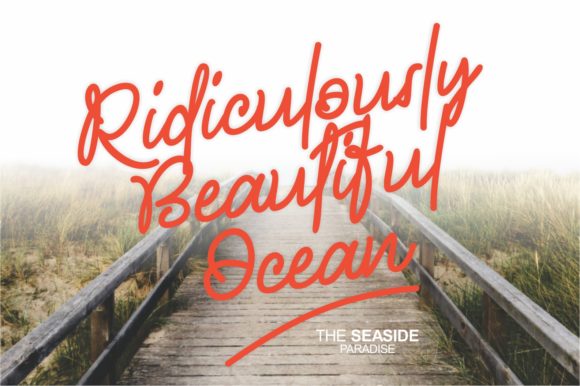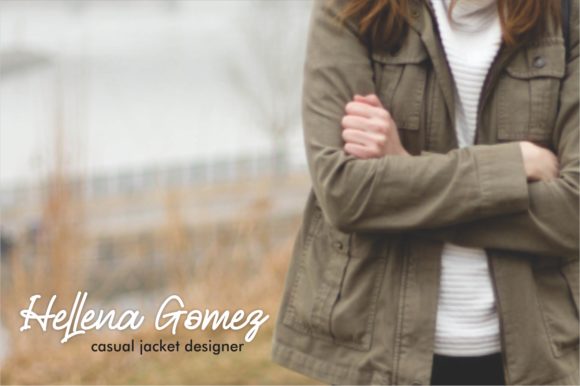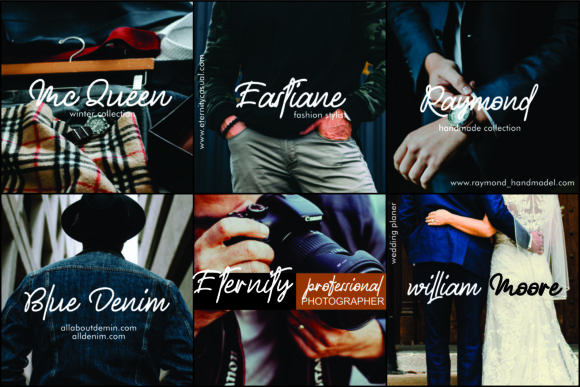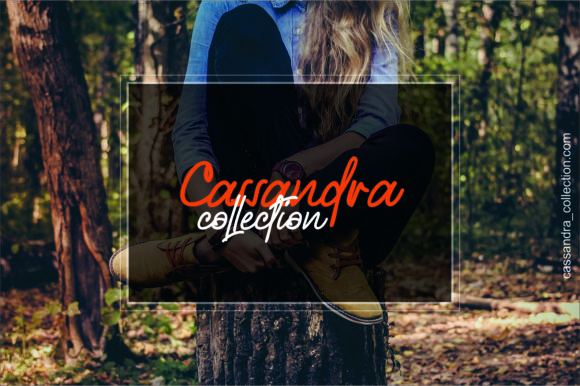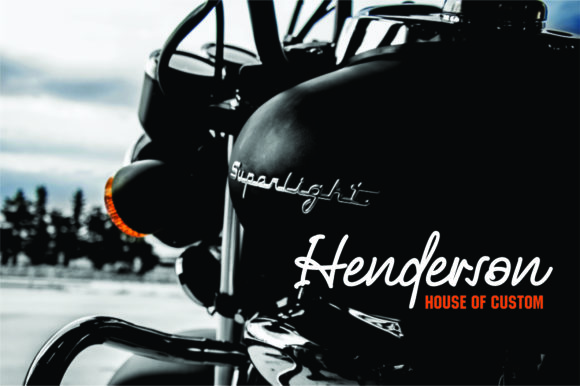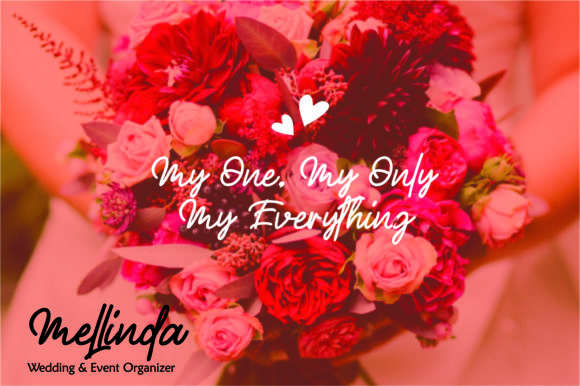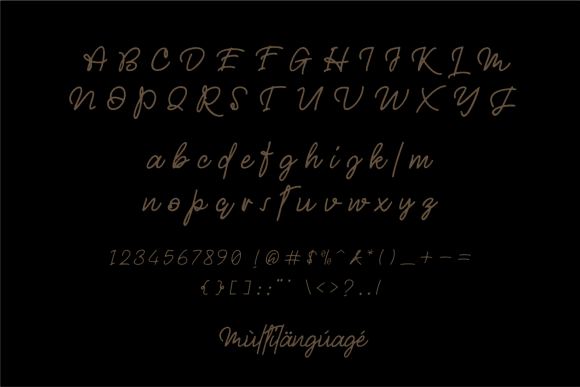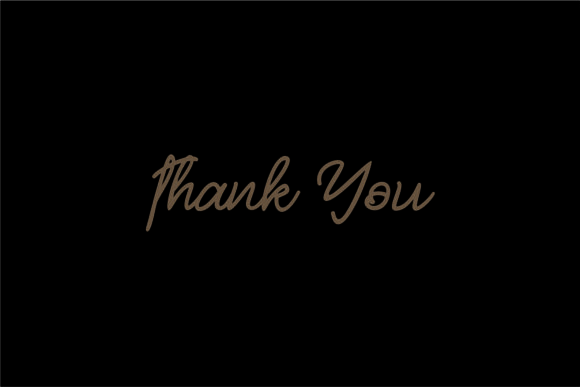
Mellodious Font
About Mellodious Font
Mellodious is a dynamic and stunning handwritten font with a playful touch. Use it to turn any design project into a true standout.